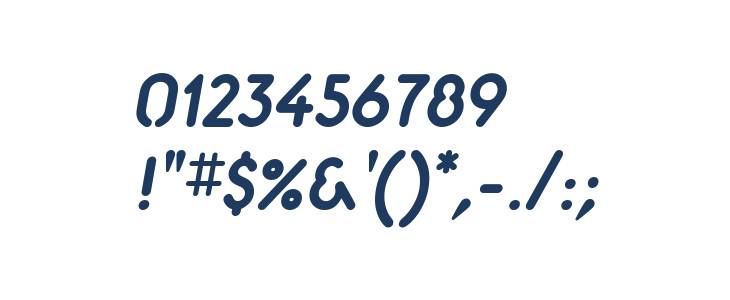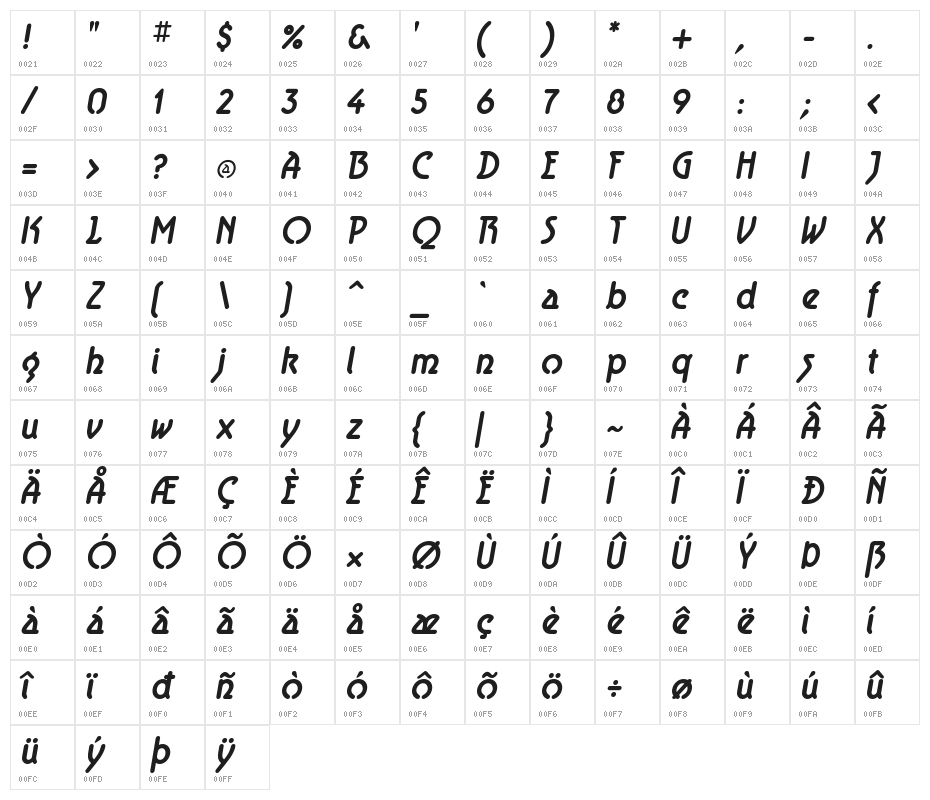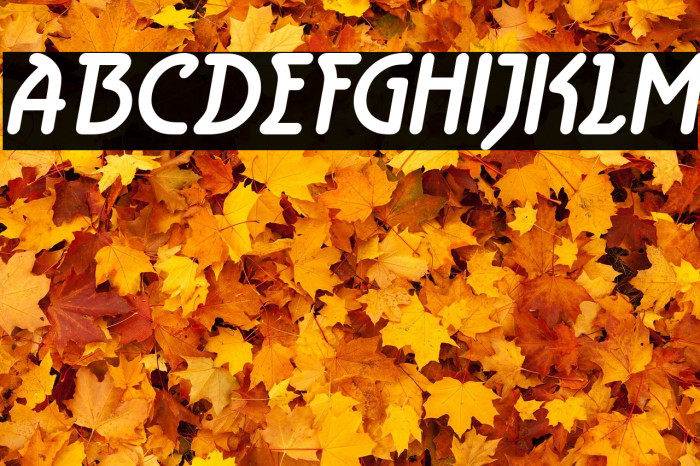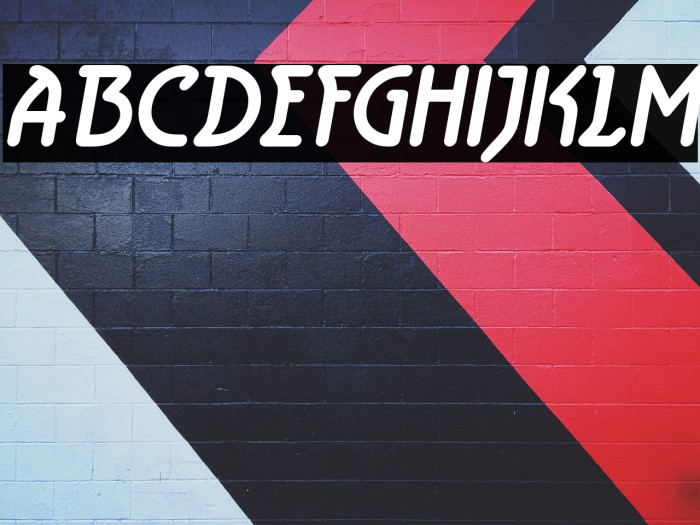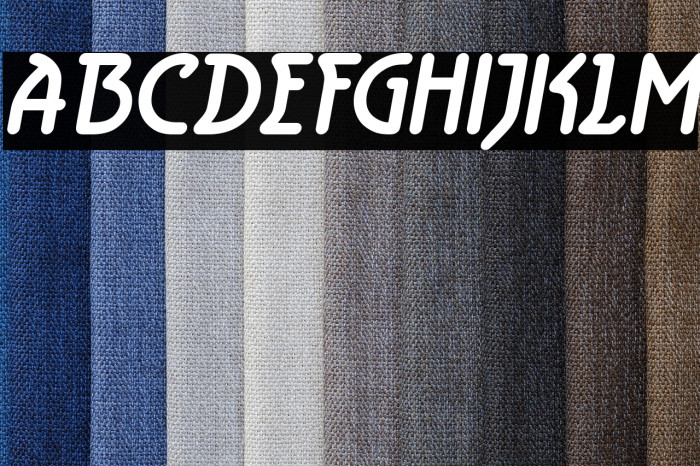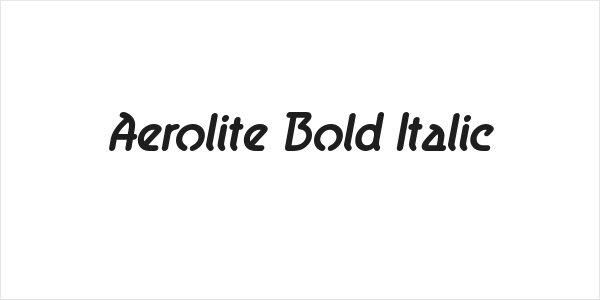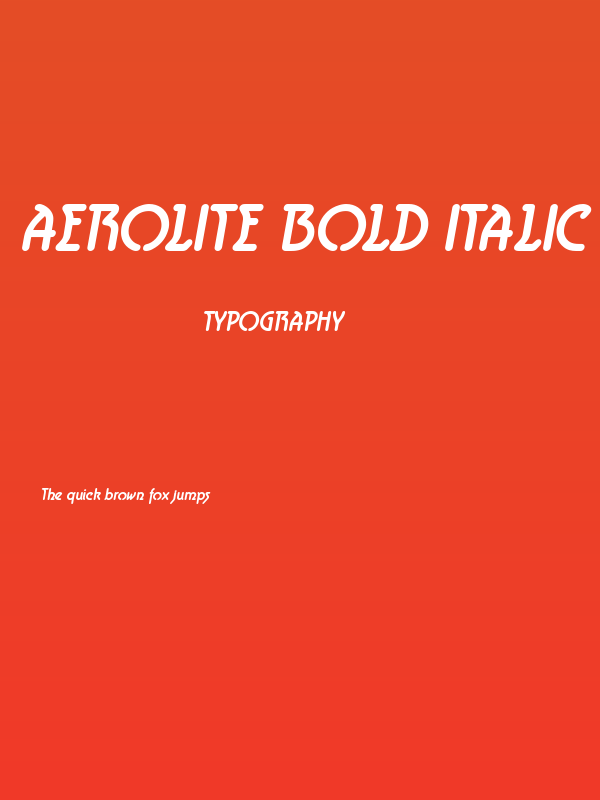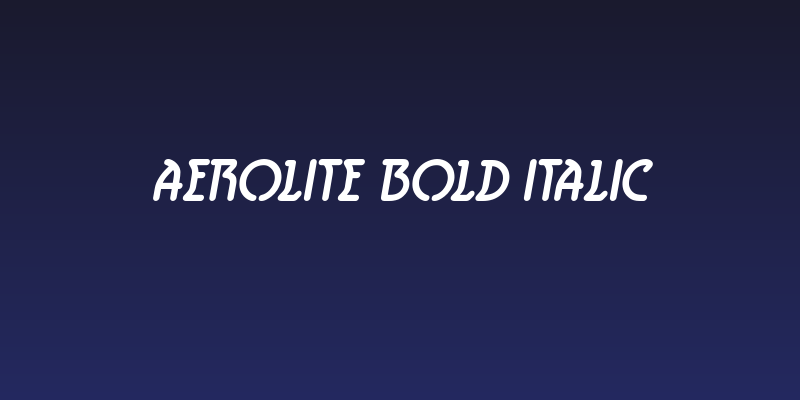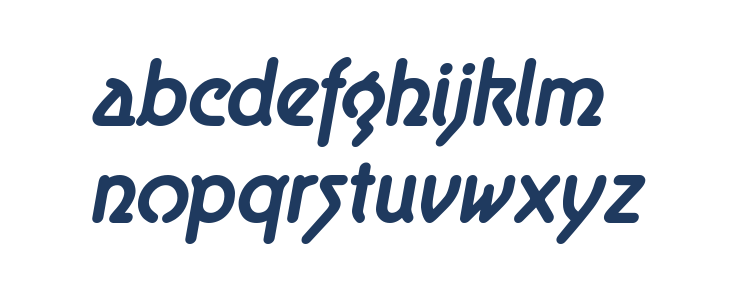
Aerolite Bold Italic Font
Aerolite Bold Italic Description
This font features a bold and italicized style with a dynamic and energetic appearance. The characters are slightly slanted, giving a sense of motion and fluidity. The strokes are thick and consistent, providing a strong visual impact. The rounded edges and smooth curves contribute to a friendly and approachable feel. The font maintains a uniform weight across all characters, ensuring readability while adding a touch of playfulness. The special characters are designed to match the overall style, with a cohesive look that complements the alphabet and numerals.